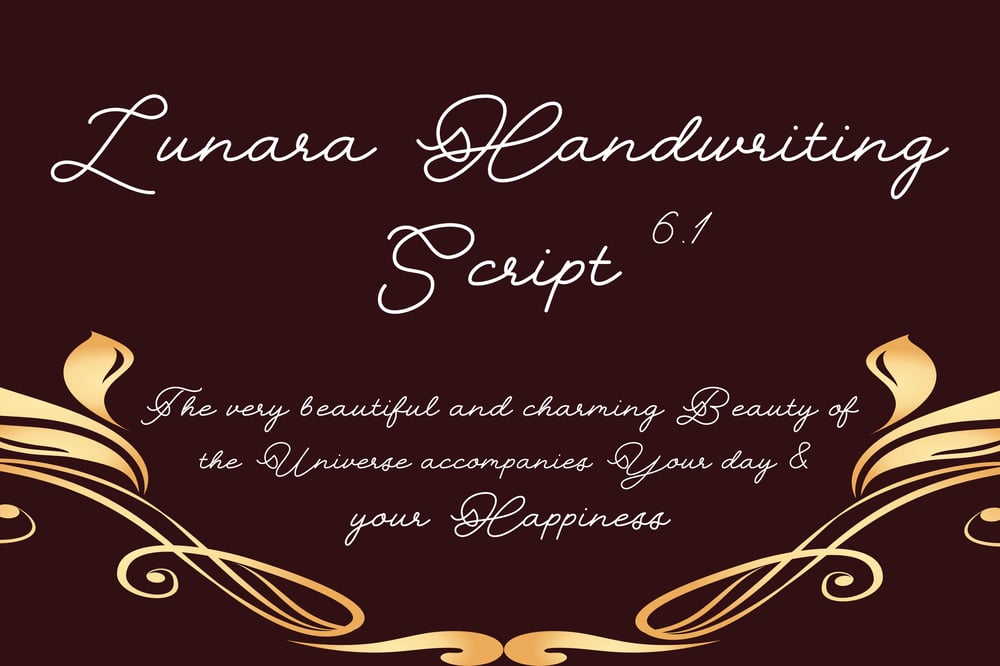
Lunara Handwriting Script 6.1 Font Family was designed by Ar Ars and published by Font Seven. Lunara Handwriting Script 6.1 contains 1 styles and family package options. Lunara Handwriting Script 6.1: Elevate Your Designs with Timeless EleganceIntroducing Lunara Handwriting Script 6.1, a versatile and elegant typeface that brings the charm of authentic handwriting to your creative projects. Designed for professionals and enthusiasts alike, this font combines sophistication with modern trends, making it an essential tool for graphic design, branding, and personalized content creation.A Font That Combines Style and FunctionalityLunara Handwriting Script 6.1 takes inspiration from the fluidity of natural handwriting, blending it with the clean aesthetics of modern typography. With enhanced features and updated design elements, this latest version is perfect for any project requiring a touch of elegance and creativity.Key Features of Lunara Handwriting Script 6.1: Refined Handwritten Style: Meticulously crafted to replicate the beauty of real handwriting with smooth curves and balanced strokes. Multilingual Support: Includes a comprehensive character set for multiple languages, ensuring versatility across global audiences. Enhanced Legibility: Optimized for both print and digital mediums, making it easy to read on any platform. Customizable Options: Offers a variety of weights and styles to match your design needs. Advanced Ligatures and Swashes: Add unique flourishes and personalized touches to your text. Designed for Endless PossibilitiesLunara Handwriting Script 6.1 is the perfect choice for a variety of creative applications: Logo Design: Craft memorable and stylish logos that leave a lasting impression. Wedding Stationery: Create romantic and elegant invitations, menus, and place cards. Brand Identity: Enhance your brand’s personality with a typeface that exudes sophistication. Social Media Graphics: Boost engagement with beautifully designed posts, stories, and banners. Website Typography: Improve the visual appeal of your website with a modern and unique font. Packaging Design: Add a personal touch to product packaging, gift boxes, and labels.